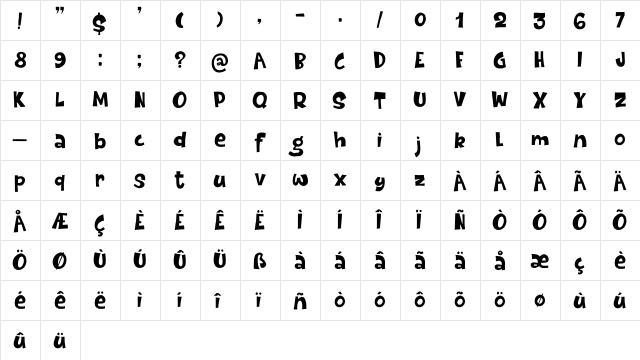
Dinosaur Cake DEMO Regular
Design Context for Dinosaur Cake DEMO Typeface
Dinosaur Cake DEMO is a composed and adaptable typeface that performs quietly and consistently across a wide range of design contexts.